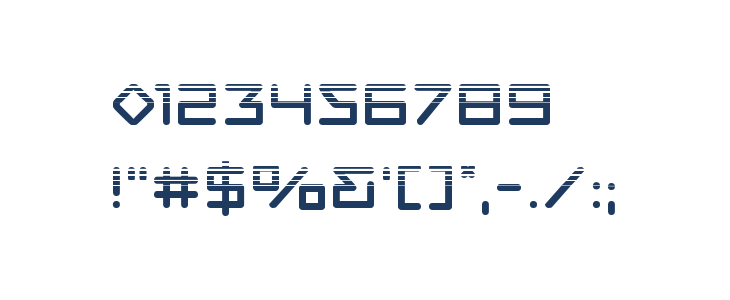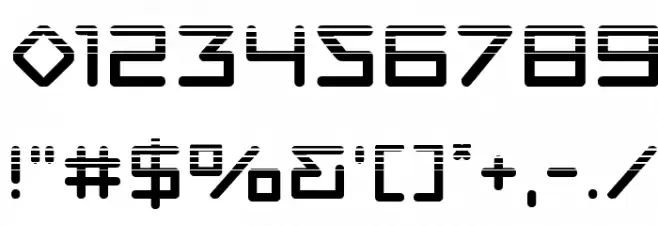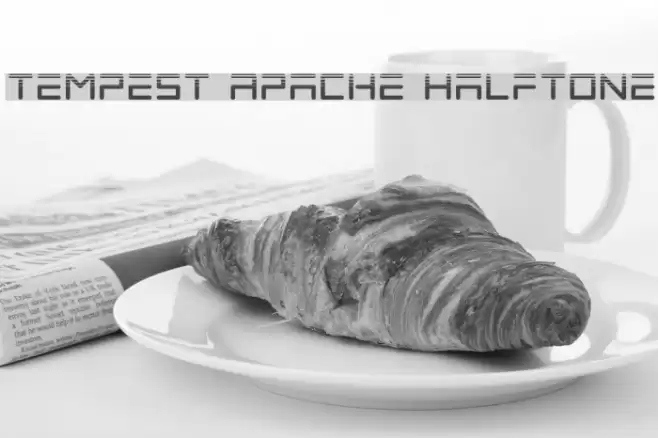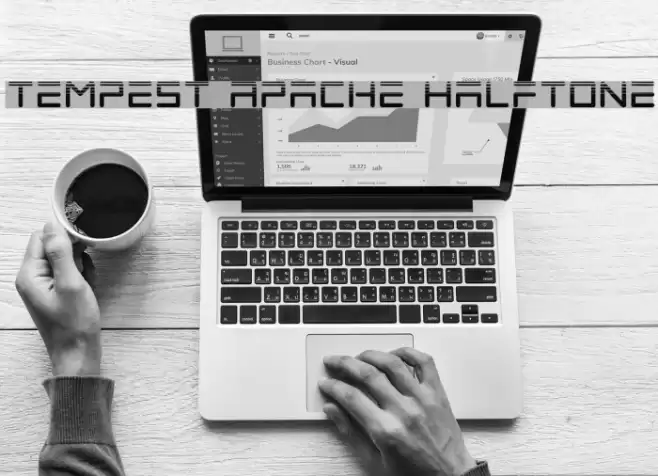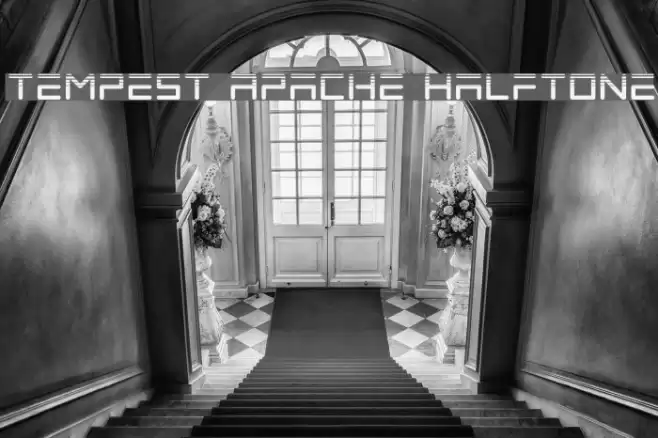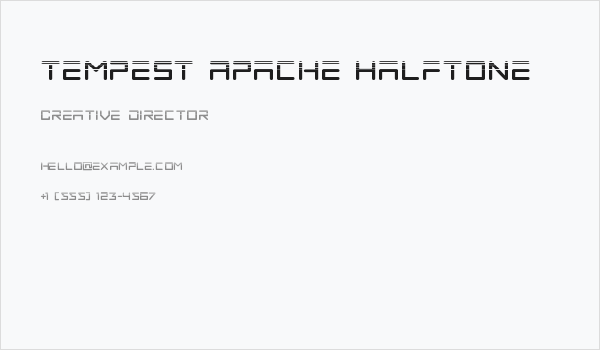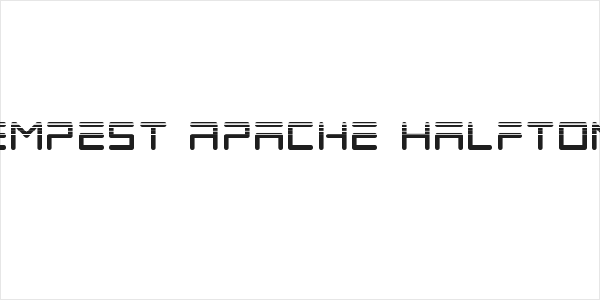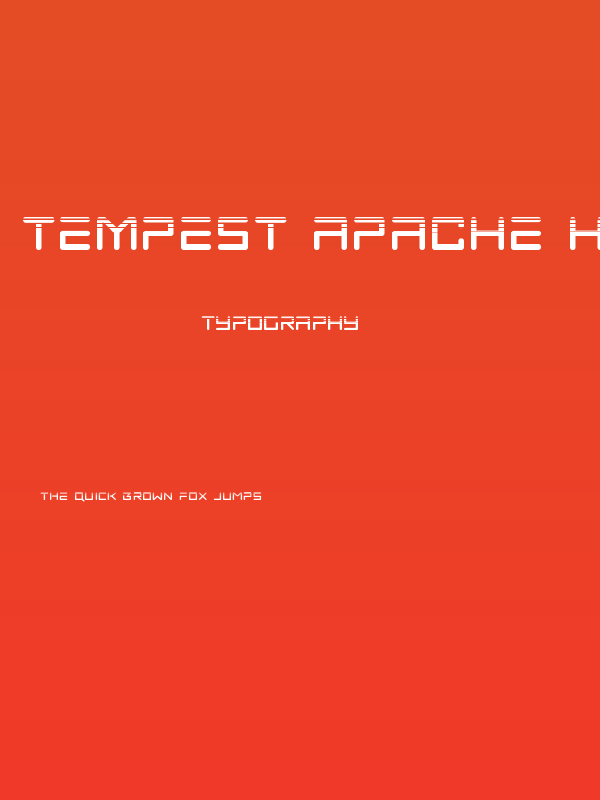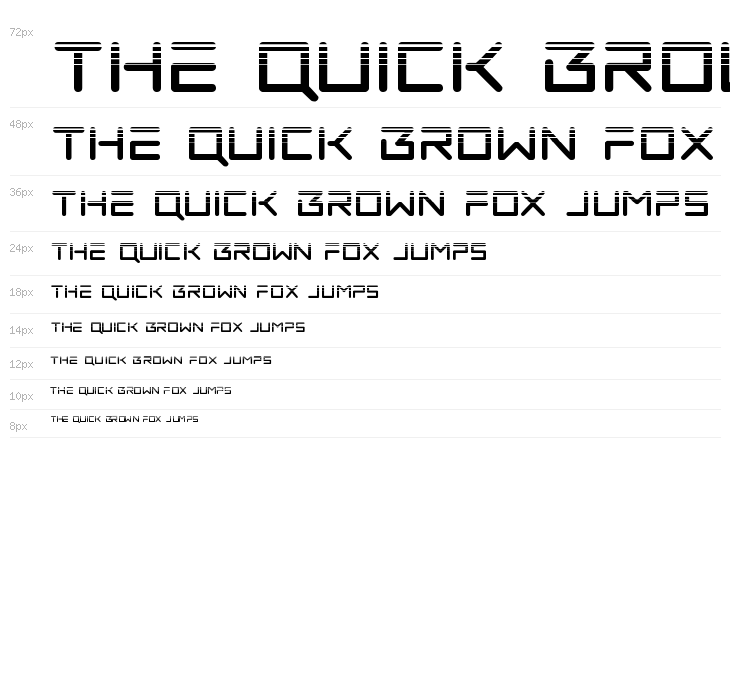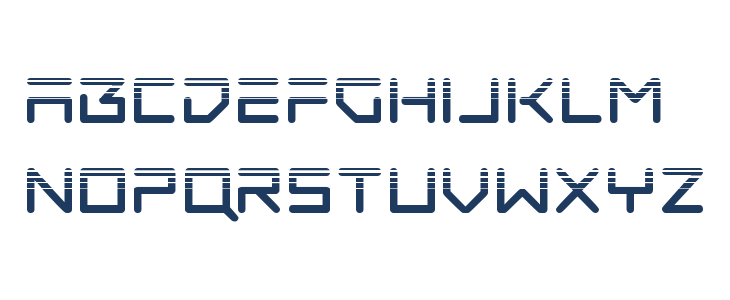
Tempest Apache Halftone Font
Tempest Apache Halftone Description
This font features a futuristic and digital aesthetic, characterized by its bold, geometric shapes and distinct halftone pattern. Each character is constructed with a series of horizontal lines that create a unique, layered effect, giving the impression of movement and depth. The uppercase and lowercase letters maintain a consistent style, with sharp angles and a uniform width that enhances readability. The numerals and special characters follow the same design principles, ensuring a cohesive look across all glyphs. This font's modern and tech-inspired appearance makes it ideal for projects that require a cutting-edge, innovative feel.
| Proposed Projects | Ideal for technology branding, video game titles, sci-fi movie posters, and digital interfaces. |